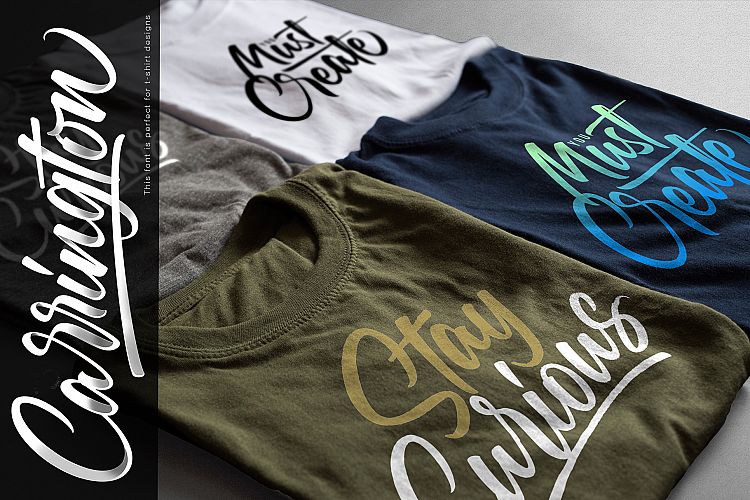
Carrington Script Font
A new handwritten script typeface by Nug’s Project. Introducing Carrington Font. Carrington Script Font is a brush script font with a dynamic and energetic style. It can used for various purposes such as titles, signatures, logotypes, t-shirt designs, letterheads, signage’s, labels, newsletters, posters, badges, and every other design which needs an unique, striking font.